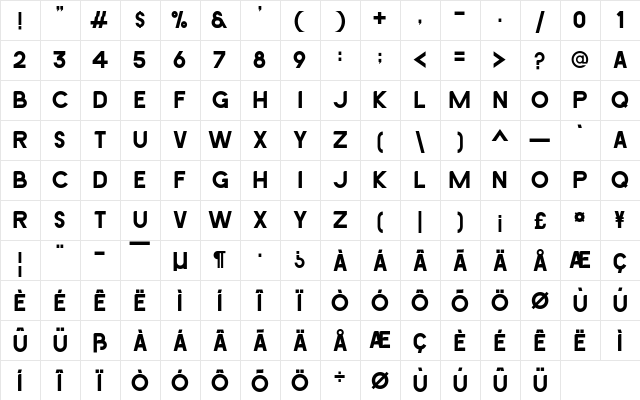
AVICENNA Regular
Design Context for AVICENNA Typeface
AVICENNA offers clean, dependable letterforms without strong stylistic allegiance, making it a practical choice for designers who need flexibility.
Pro Tip: Use AVICENNA in both headline and body roles to test its range before committing to a single application.